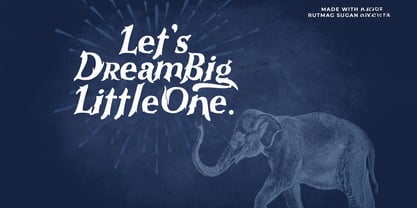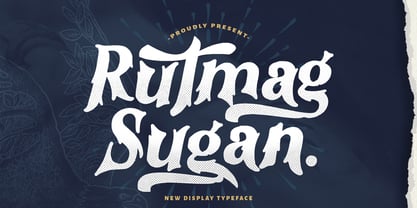
Rutmag Sugan
by Stringlabs Creative Studio
The Rutmag Sugan Font Family was designed by Virgiawan Listanto and published by Stringlabs Creative Studio. Rutmag Sugan contains 1 styles. More about this family
Rutmag Sugan is a striking decorative display font with a unique blend of creativity and bold structure. Designed to grab attention, its artistic letterforms and intricate details make it perfect for standout headlines, branding, and expressive visual projects.
Designers: Virgiawan Listanto
Foundry: Stringlabs Creative Studio